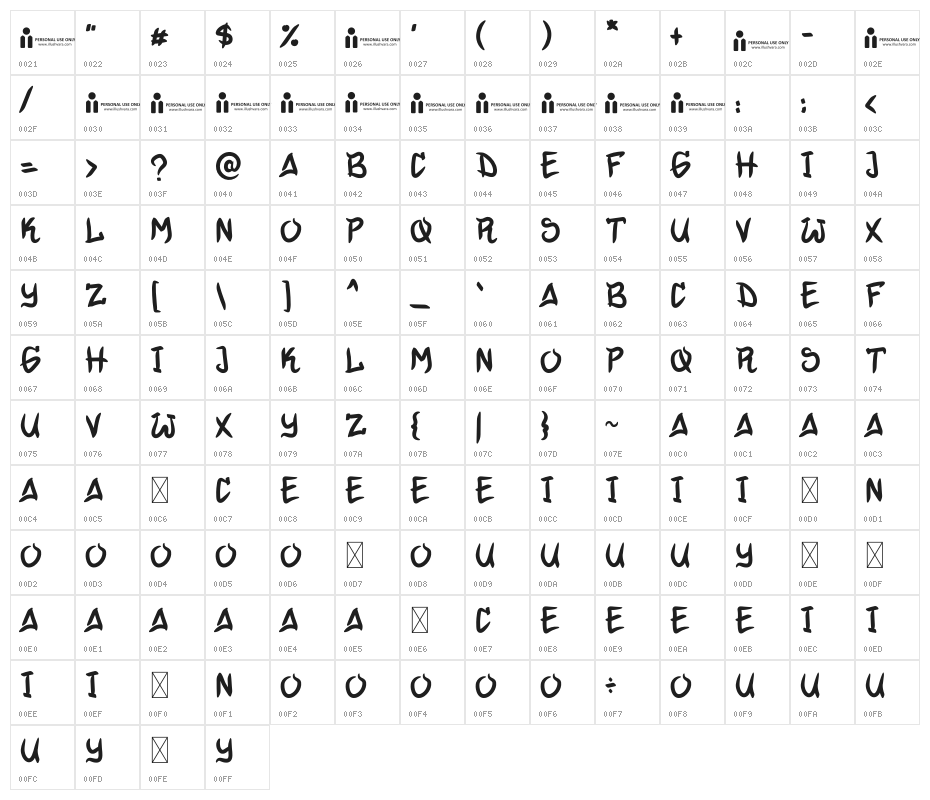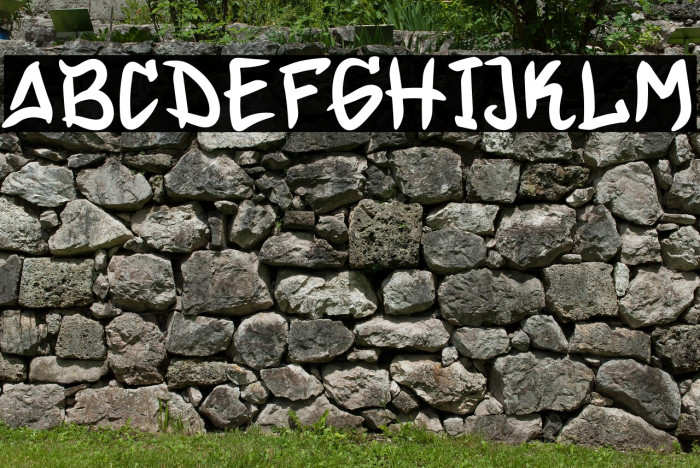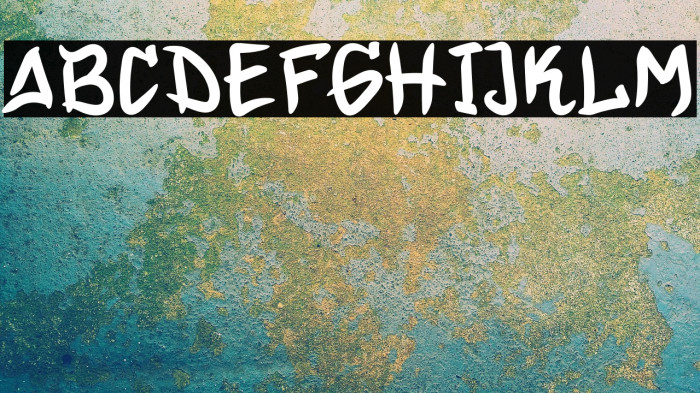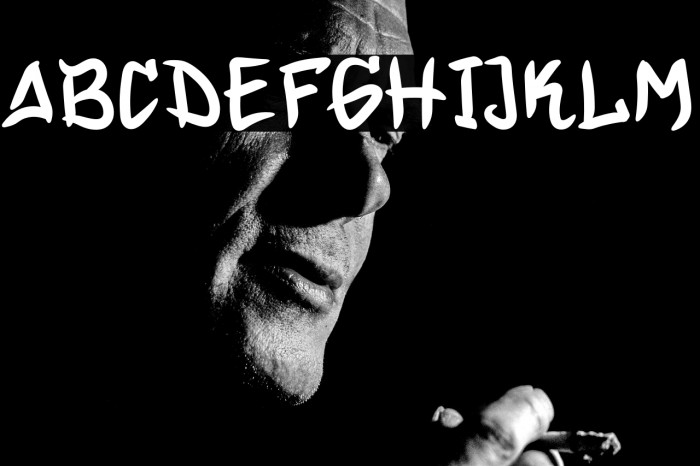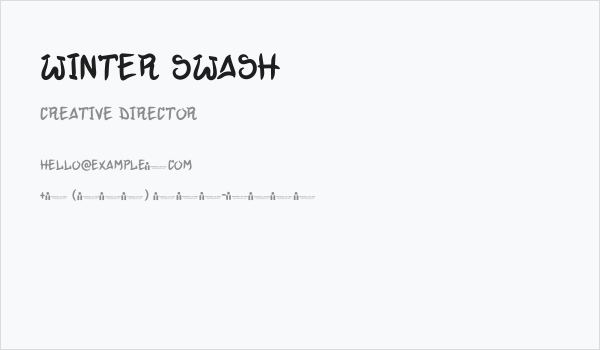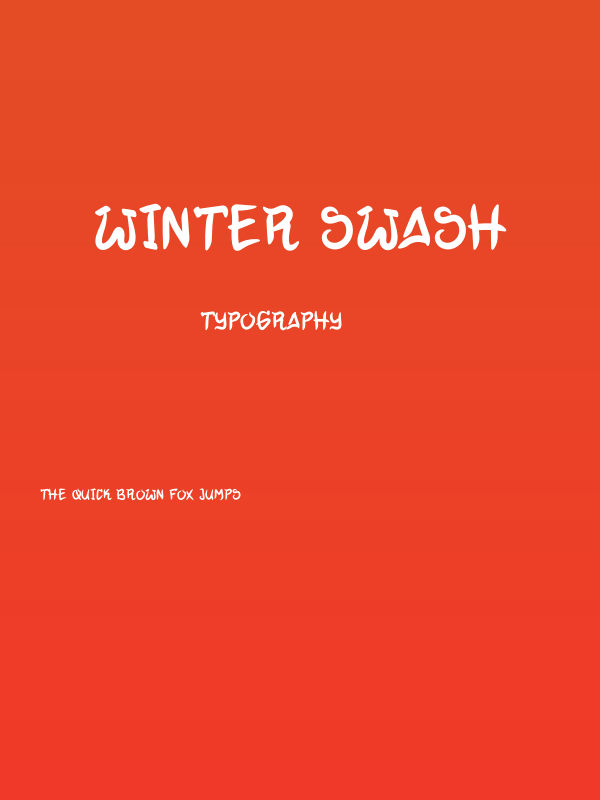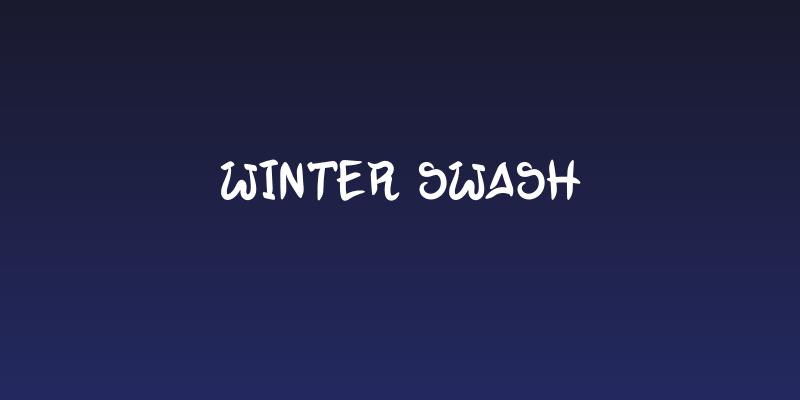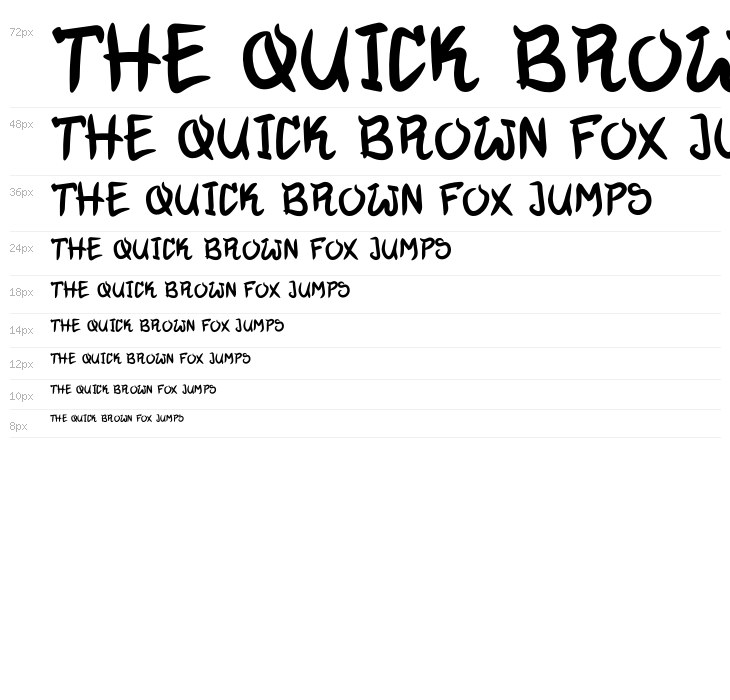
Winter Swash Font
Winter Swash Description
This font features a bold and dynamic script style with a playful and energetic appearance. The characters are crafted with a brush-like effect, giving them a hand-drawn and artistic feel. The uppercase and lowercase letters maintain a consistent flow, with unique swashes and curves that add a whimsical touch. The numbers and special characters are designed to complement the overall style, making it suitable for creative and expressive projects.